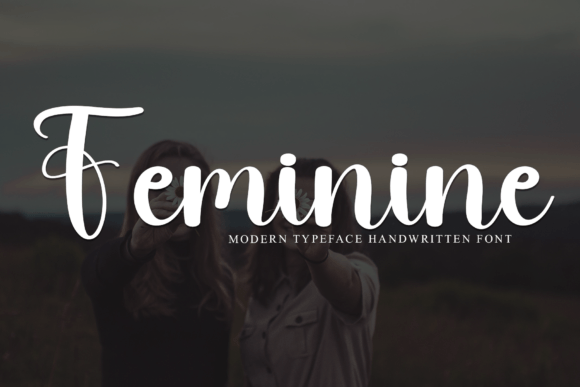
Feminine Font: Elevate Your Designs with a Soft and Unique Touch
In the world of typography, fonts play a crucial role in conveying the tone and personality of a design. When it comes to creating visually appealing and feminine designs, the right font can make all the difference. This is where the Feminine font comes in – a beautiful and eye-catching typeface designed with a soft, unique touch that is sure to elevate your designs to the next level.
The Distinctive Characteristics of Feminine Font
The Feminine font boasts distinctive strokes that give it a special character, making it both meaningful and versatile for future use. Its unique design elements set it apart from other fonts, making it perfect for a wide range of design projects, crafts, and other creative works. Whether you’re looking to create a stunning logo, a beautiful wedding invitation, or a captivating social media post, the Feminine font is sure to make your designs stand out.
A Font for All Occasions
One of the key benefits of the Feminine font is its versatility. With various characters, this font is perfect for a wide range of design projects, including:
- Logos and branding materials
- Wedding invitations and stationery
- Social media posts and graphics
- Crafts and DIY projects
- Packaging and product design
Whether you’re a designer, artist, or crafty DIY enthusiast, the Feminine font is sure to become a go-to choice for all your design needs.
The Benefits of Using Feminine Font
So why choose the Feminine font for your design projects? Here are just a few benefits:
- Unique and eye-catching designs: The Feminine font is sure to make your designs stand out with its soft, unique touch.
- Versatility: With various characters and a wide range of applications, the Feminine font is perfect for a variety of design projects.
Tips for Using Feminine Font Effectively
To get the most out of the Feminine font, here are a few tips:
- Use it sparingly: While the Feminine font is beautiful, it’s best to use it sparingly to avoid overwhelming your design.
- Pair it with complementary fonts: Pairing the Feminine font with complementary fonts can help to create a cohesive and visually appealing design.
- Experiment with different sizes and colors: Don’t be afraid to experiment with different sizes and colors to find the perfect combination for your design.
In conclusion, the Feminine font is a beautiful and eye-catching typeface that is sure to elevate your designs to the next level. With its soft, unique touch and versatile design, it’s perfect for a wide range of design projects, crafts, and other creative works. Whether you’re a designer, artist, or crafty DIY enthusiast, the Feminine font is a great choice for anyone looking to add a touch of elegance and sophistication to their designs.
- What is the Feminine font?: The Feminine font is a beautiful and eye-catching typeface designed with a soft, unique touch.